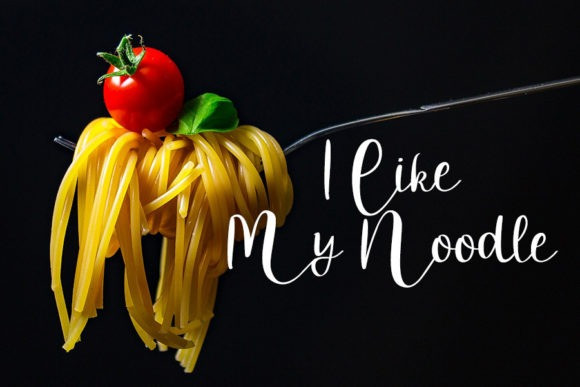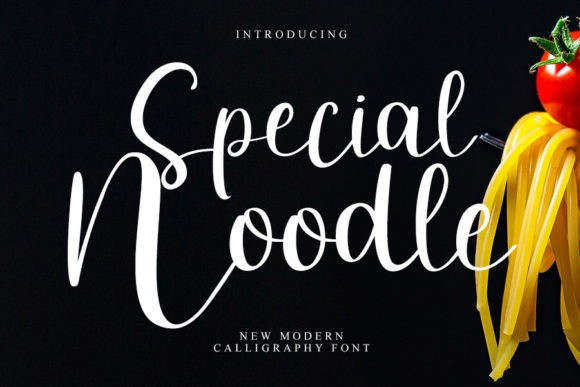
Special Noodle Font
Special Noodle Script Font is a lovely and delicate script handwritten font that exudes elegance and class. This font was particularly crafted for those who need a beautiful and refreshing look to their designs.